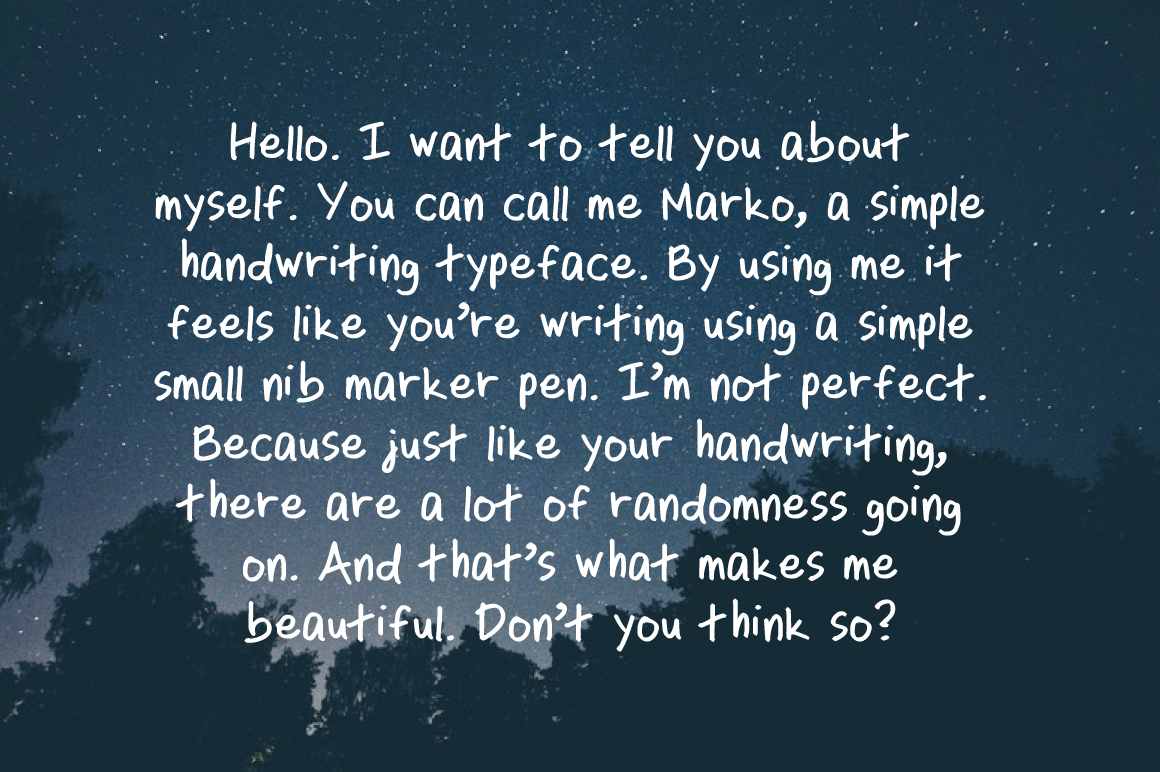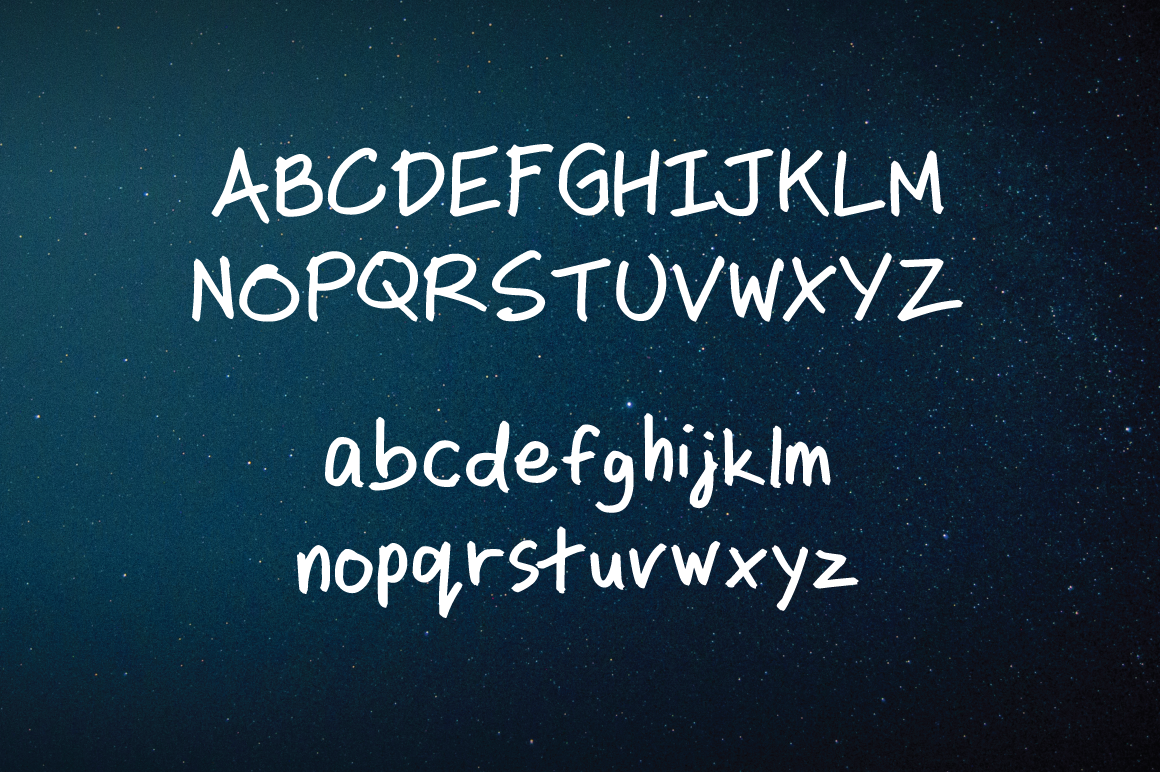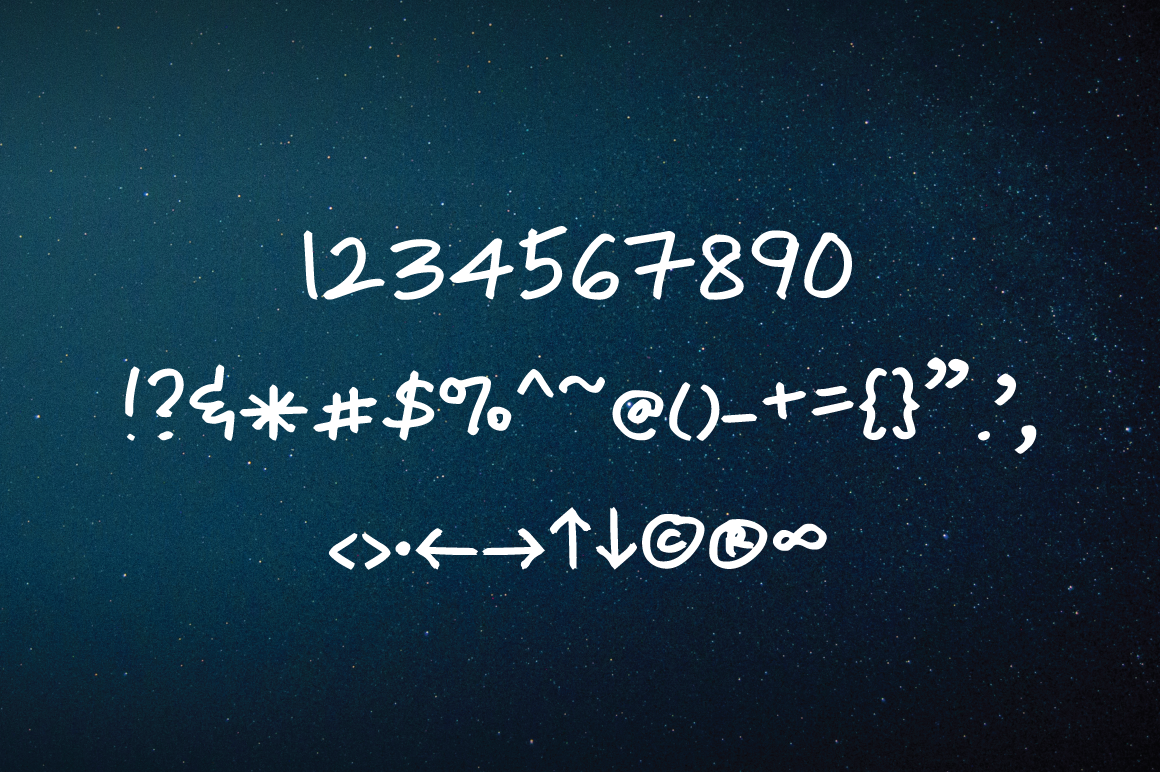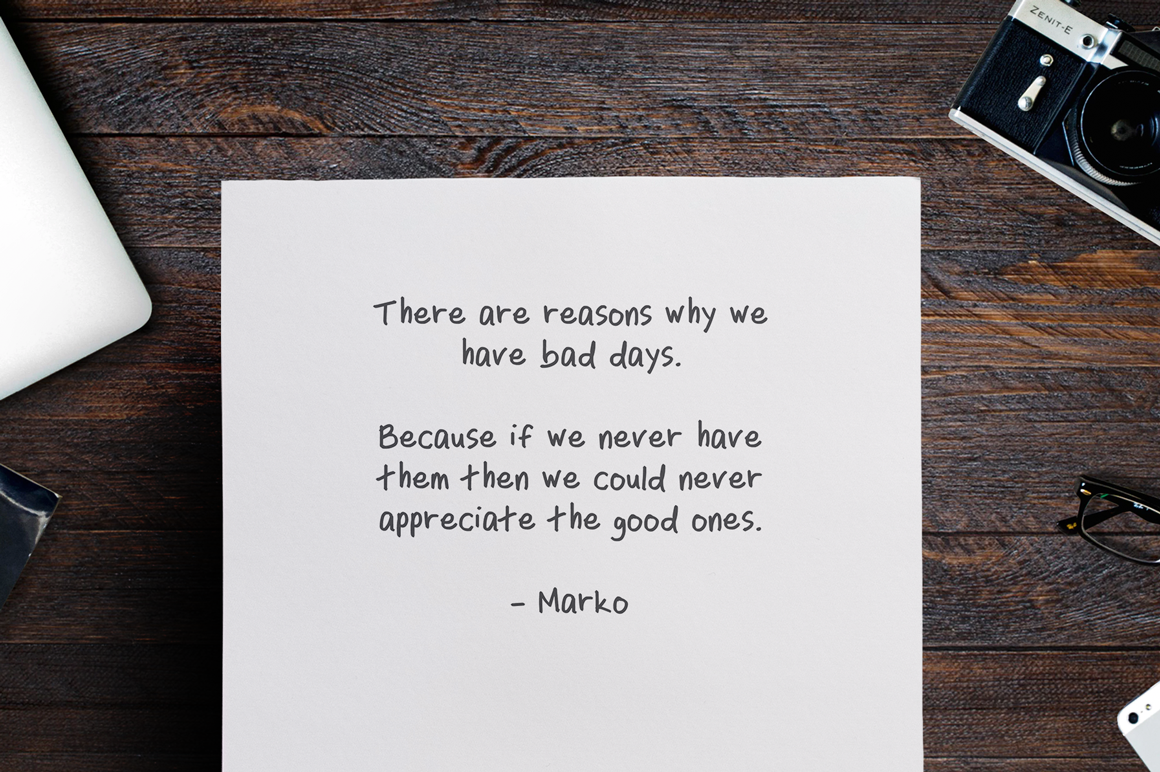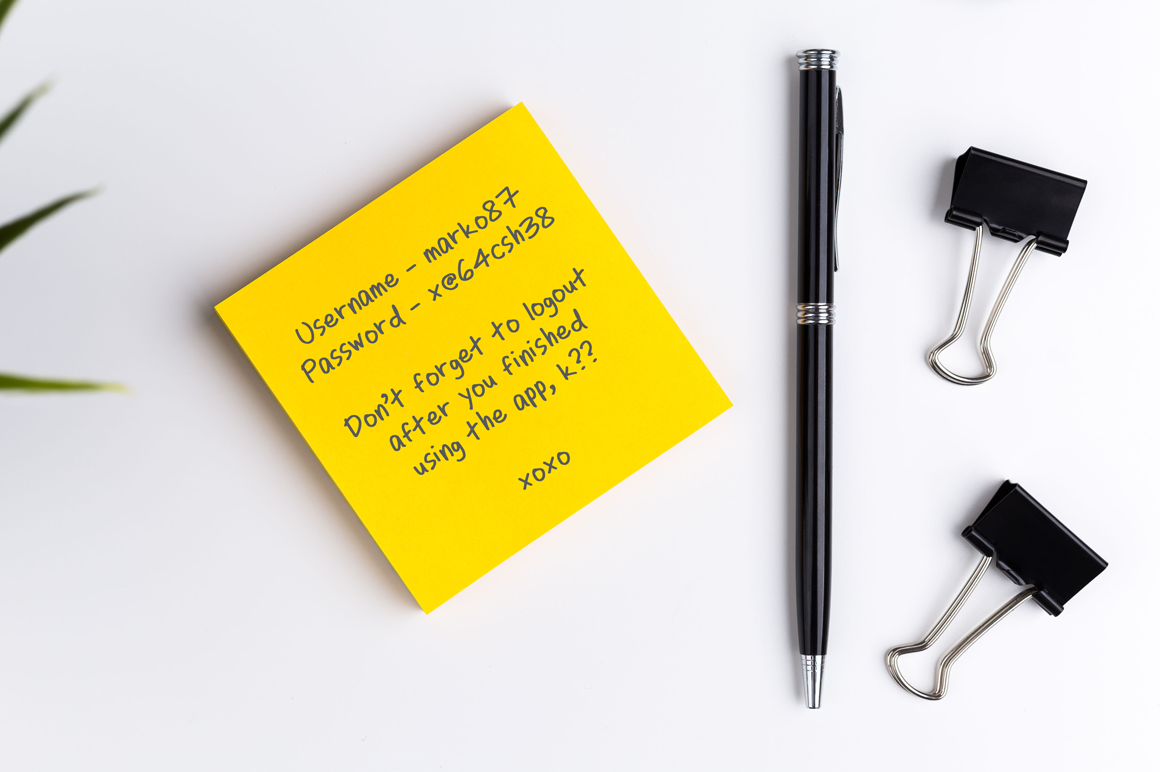
Marko Font
About Marko Font
Marko is a handwritten typeface, designed to give you that simple and honest handwriting look. It is suitable for notes, annotations, comments, speech and text bubble, comics, handwritten letters or cards, and a lot more.